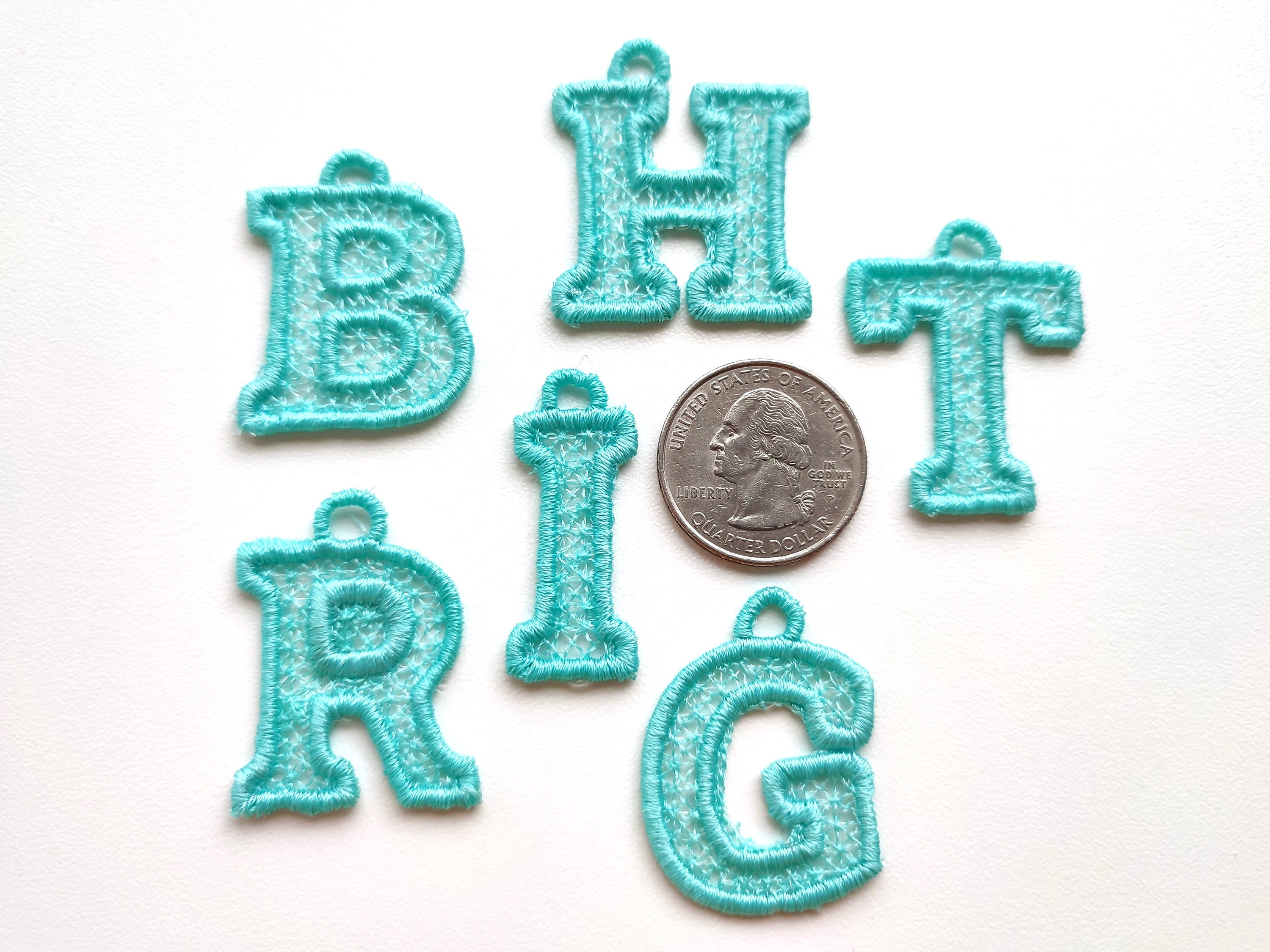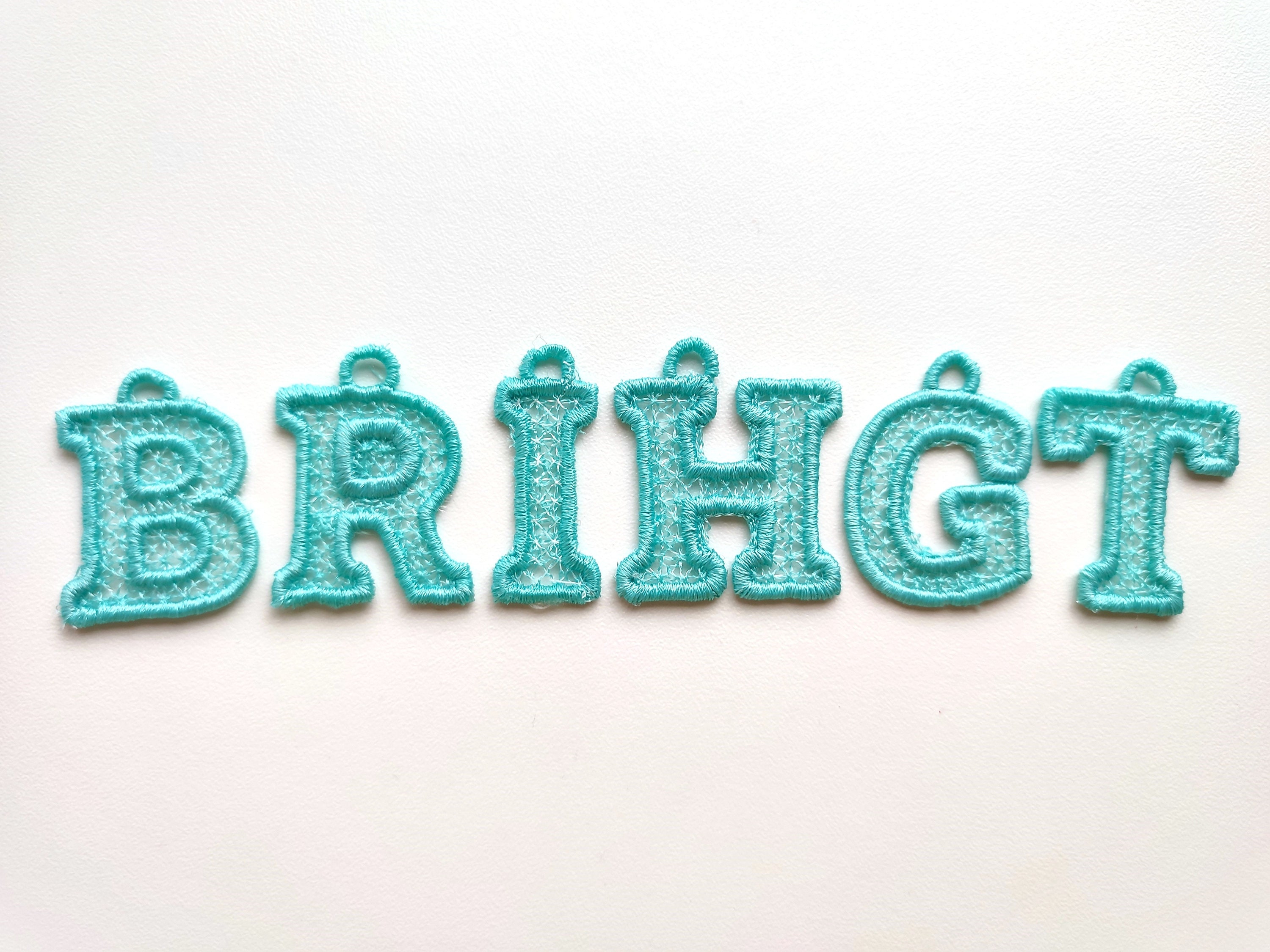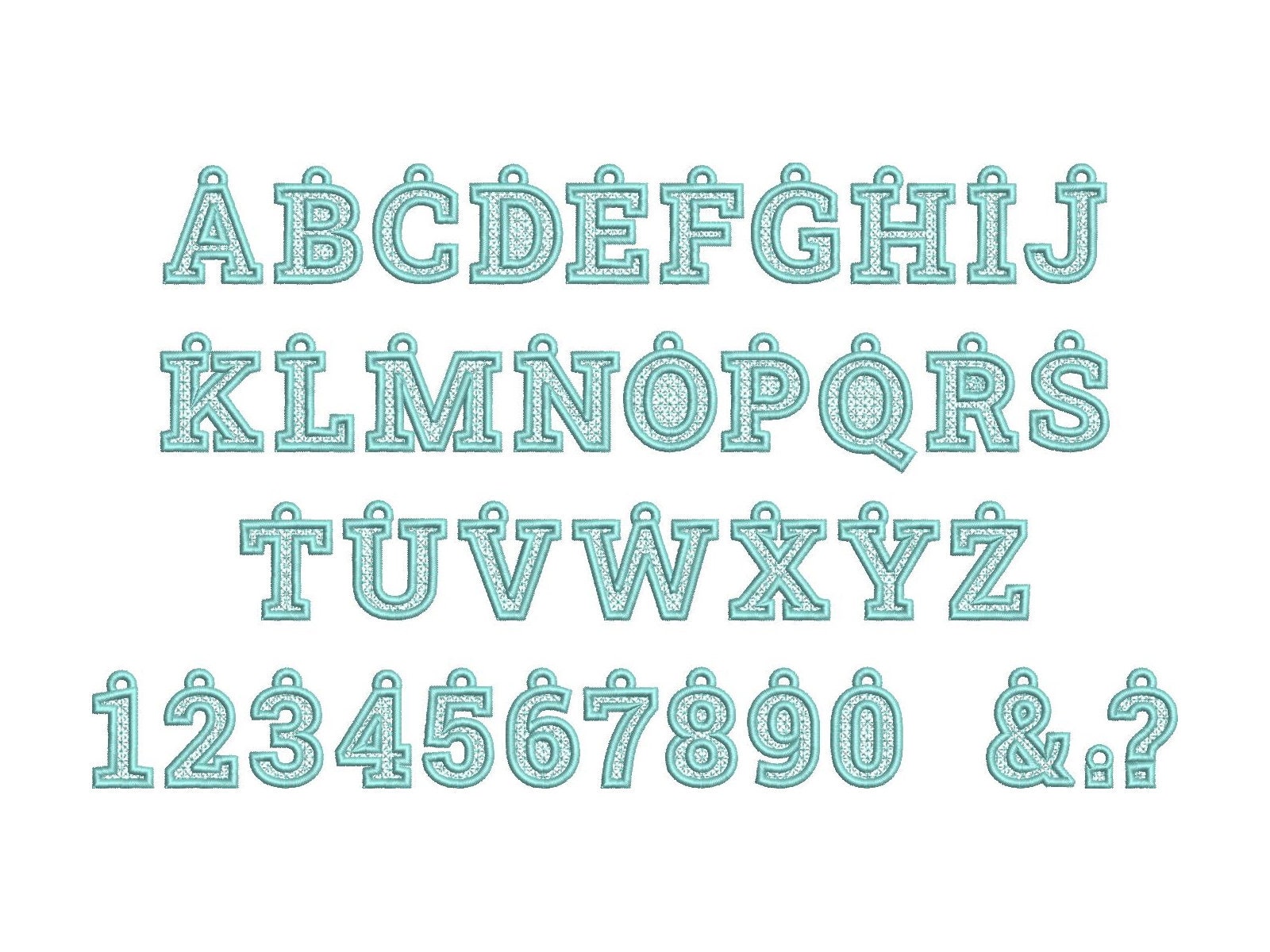
Bright Lace Font FSL free standing lace Hanging Monogram letters machine embroidery designs pendant earrings alphabet in assorted sizes, BX included
Whole alphabet uppercase A-Z, numbers 0-9, and special marks & . ?
Freestanding lace! The letters are stitched onto a non-woven water-soluble stabilizer.
Add-on: included some wide letters with two loops.